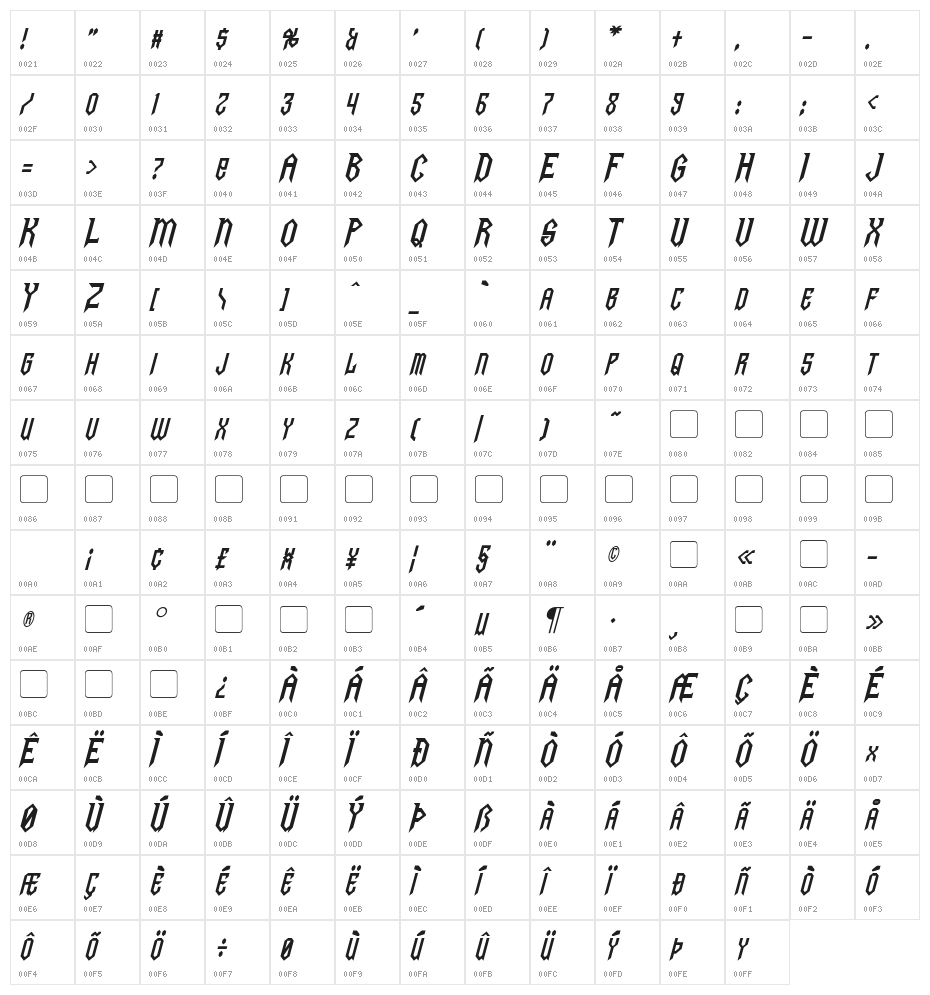
Gargoyles Italic Font
Gargoyles Italic Description
This font features a bold and dynamic style with sharp, angular lines that evoke a sense of movement and energy. The italicized slant adds a forward-leaning momentum, enhancing its aggressive and modern appearance. Each character is distinct, with exaggerated serifs and a consistent stroke width that maintains legibility while adding a unique flair. The uppercase and lowercase letters are designed with a cohesive aesthetic, making it suitable for impactful headlines or branding that requires a strong visual presence. The numbers and special characters follow the same stylistic cues, ensuring uniformity across all text elements.